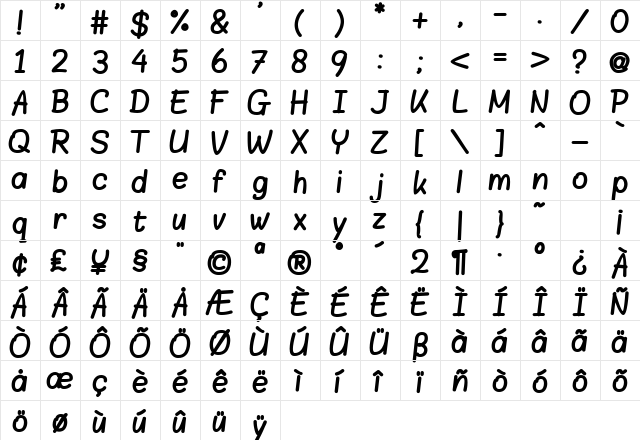
Blokletters Viltstift Viltstift
Design Context for Blokletters Viltstift Typeface
Blokletters Viltstift takes a measured approach to typography — its balanced proportions and neutral character make it a reliable workhorse for both digital and print work.